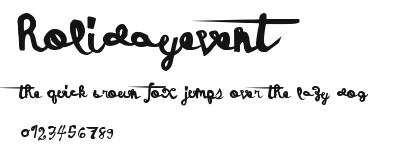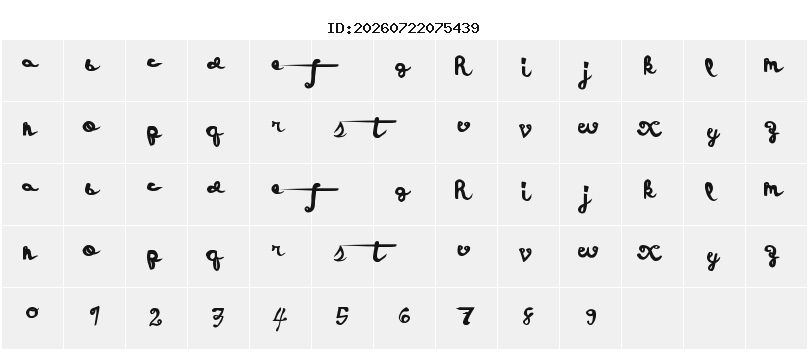
• Font Name: HolidayEvent
• Designer: Max Infeld
• Manufacturer: Xerographer Fonts
• Description: This font at in Chico,CA cursive lowercase handwritten marketing cursive unique handdrawn hand drawn